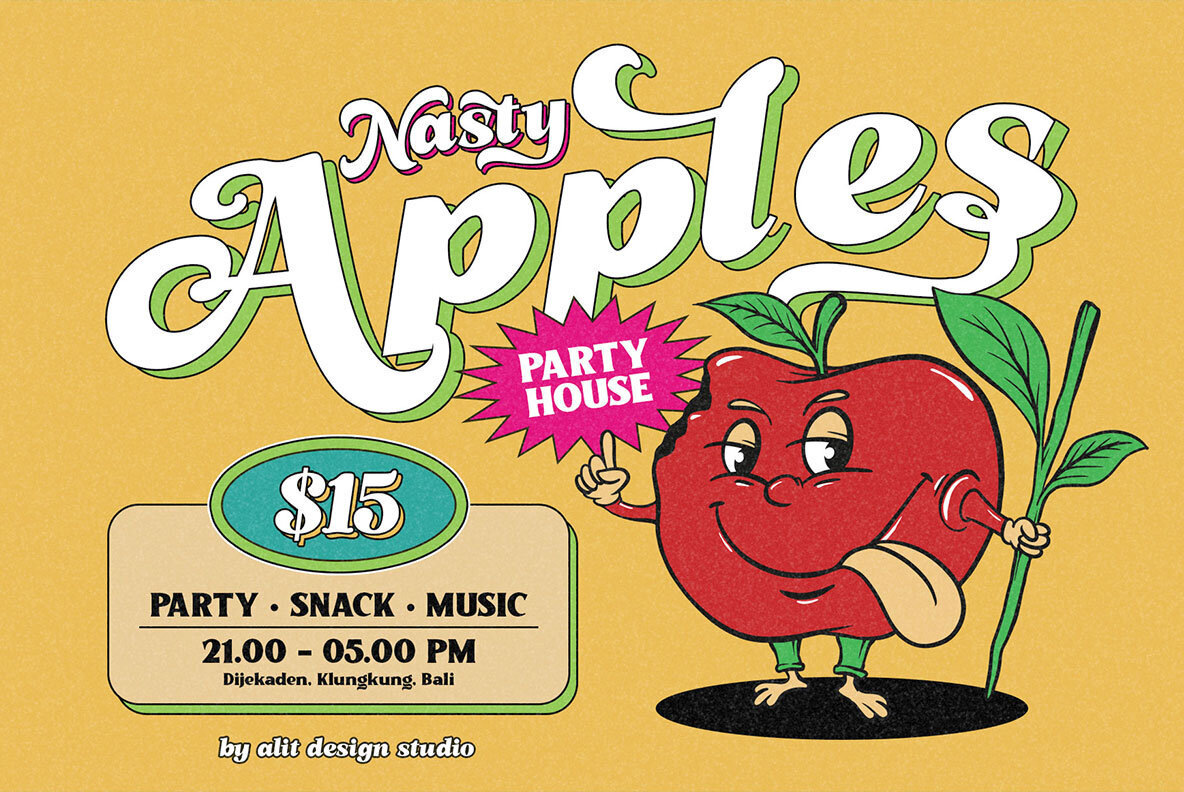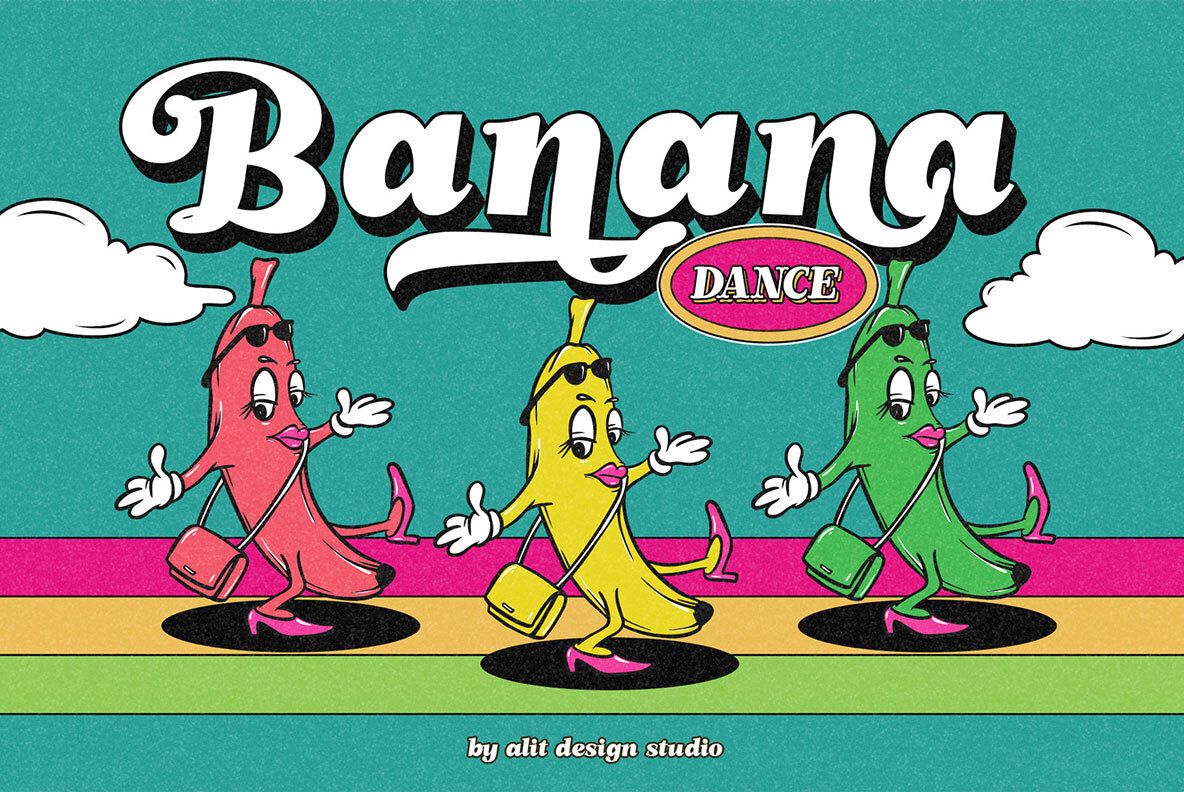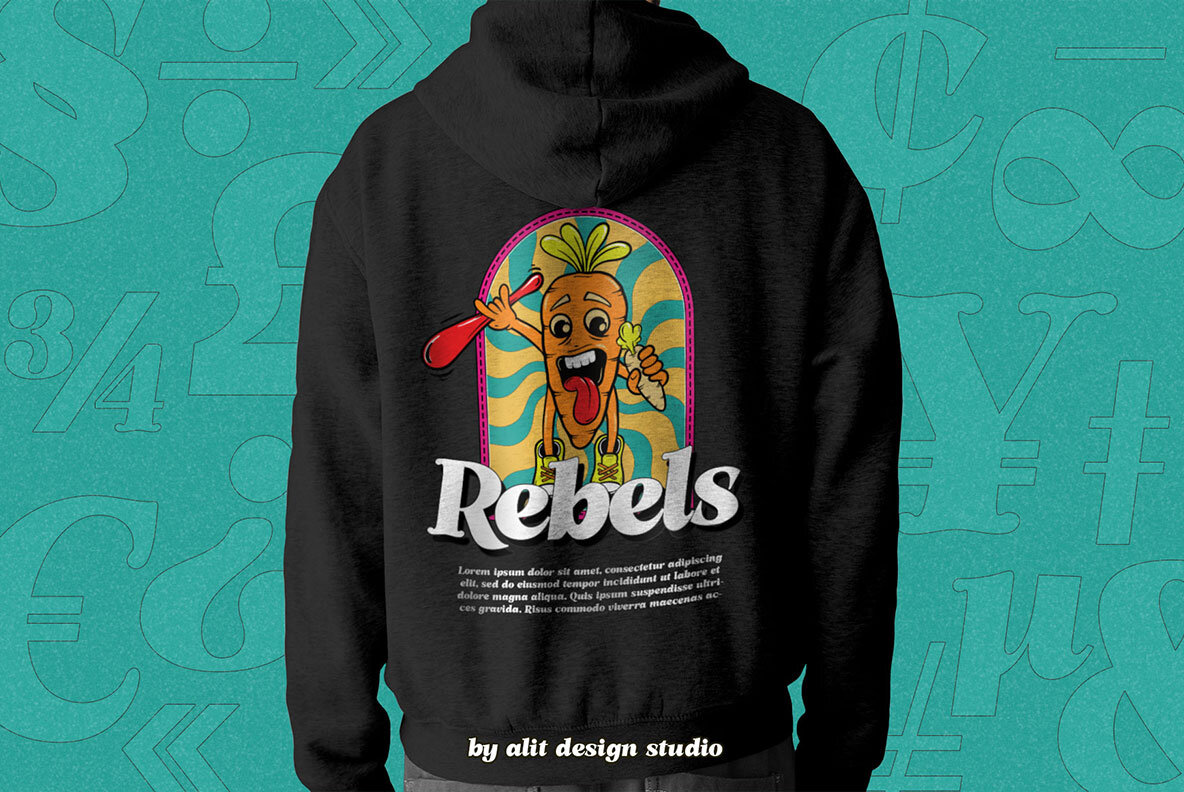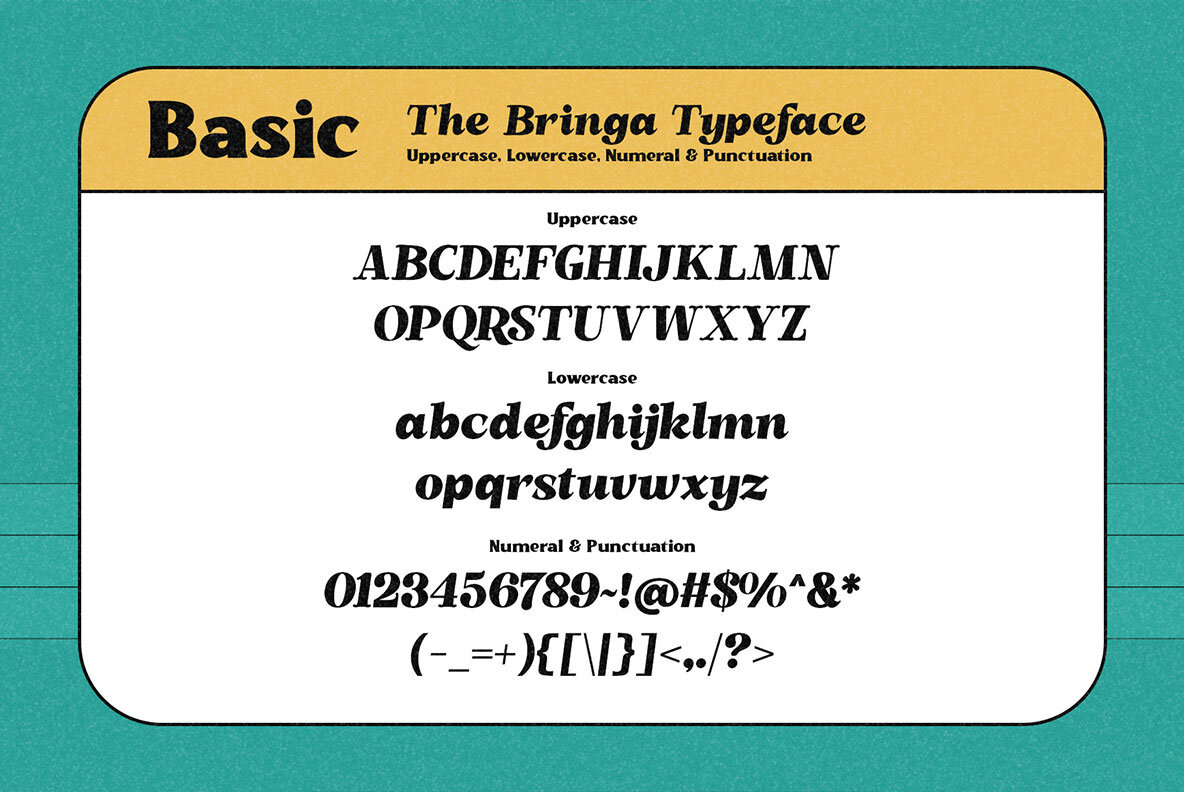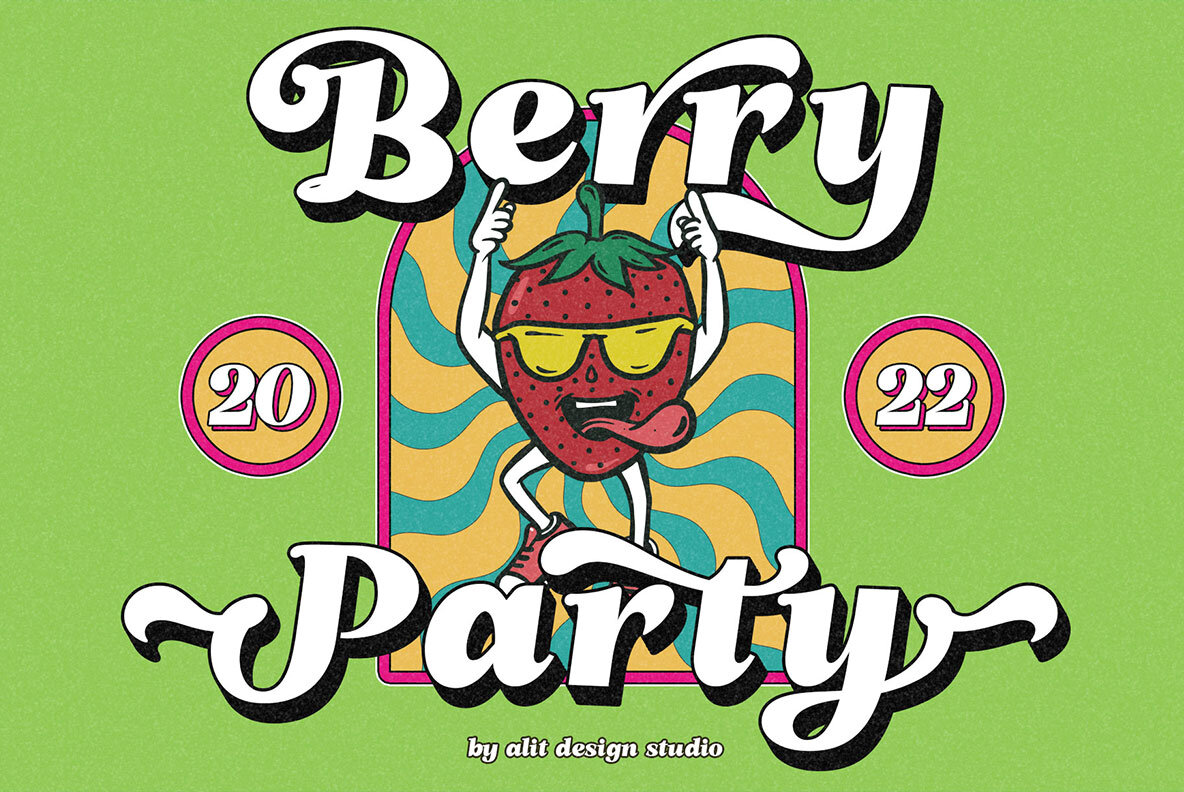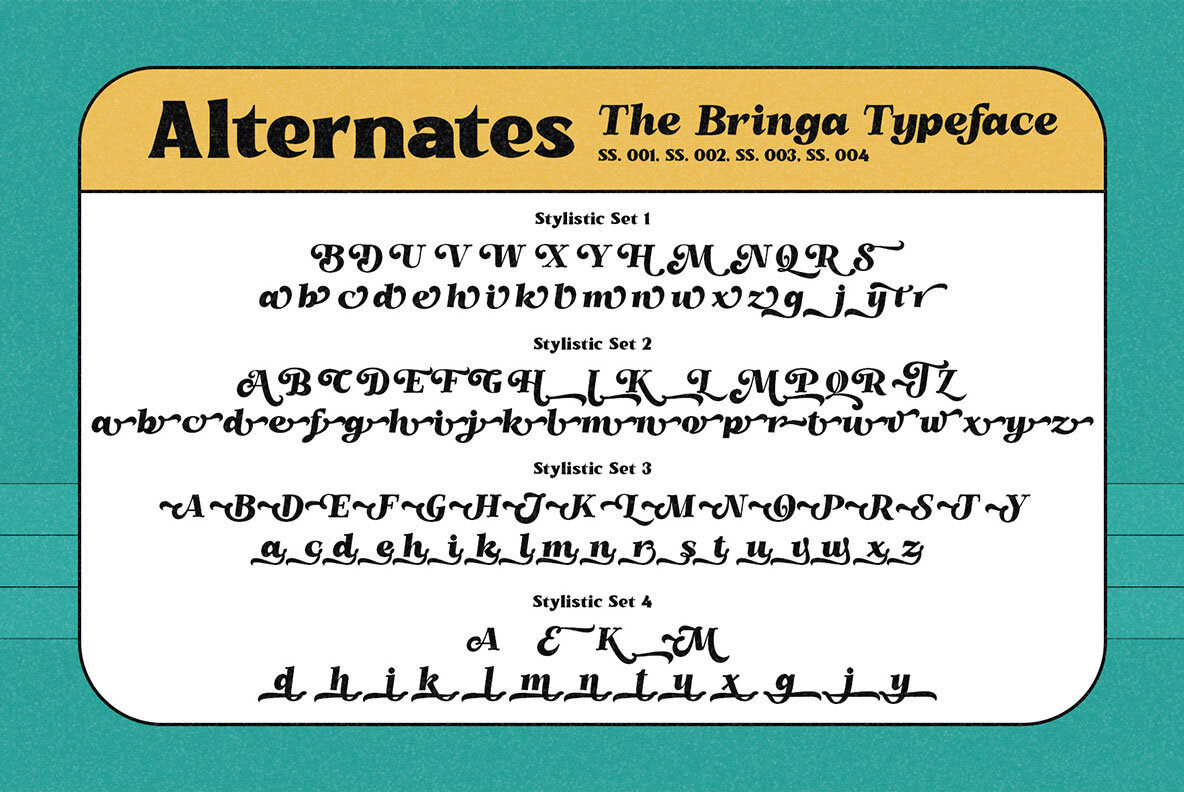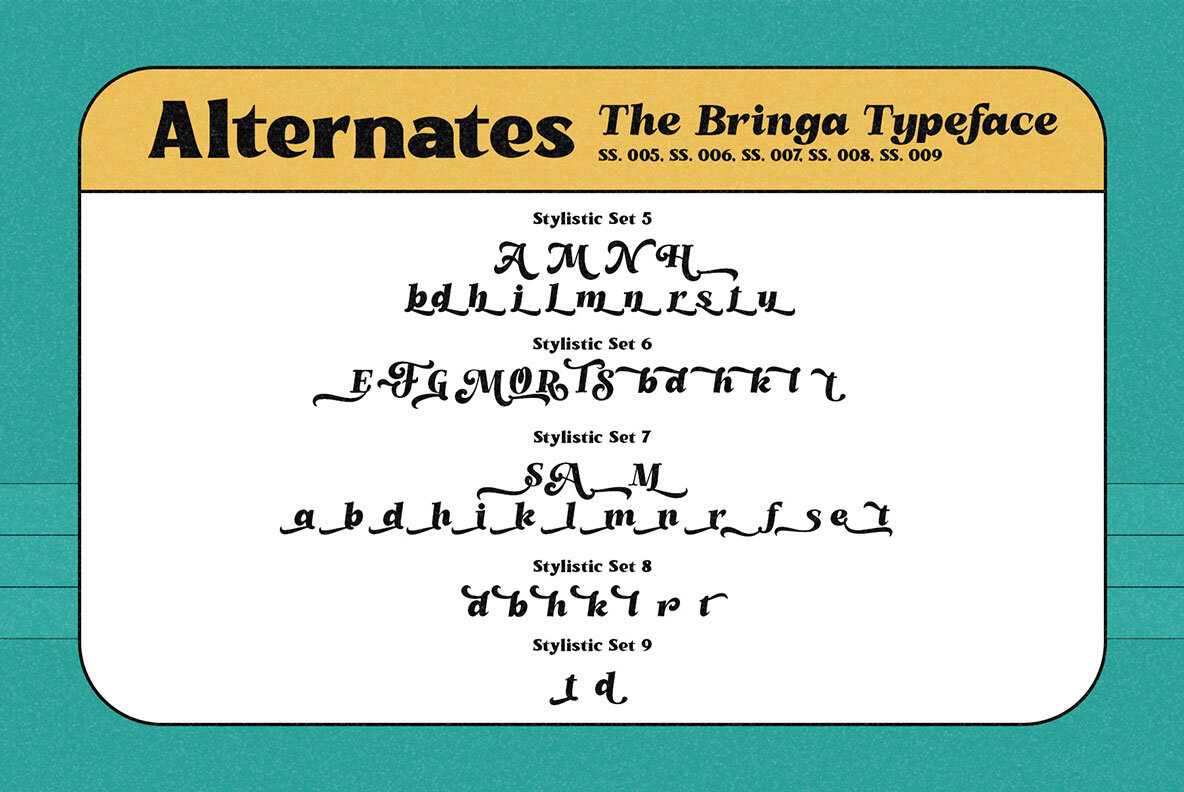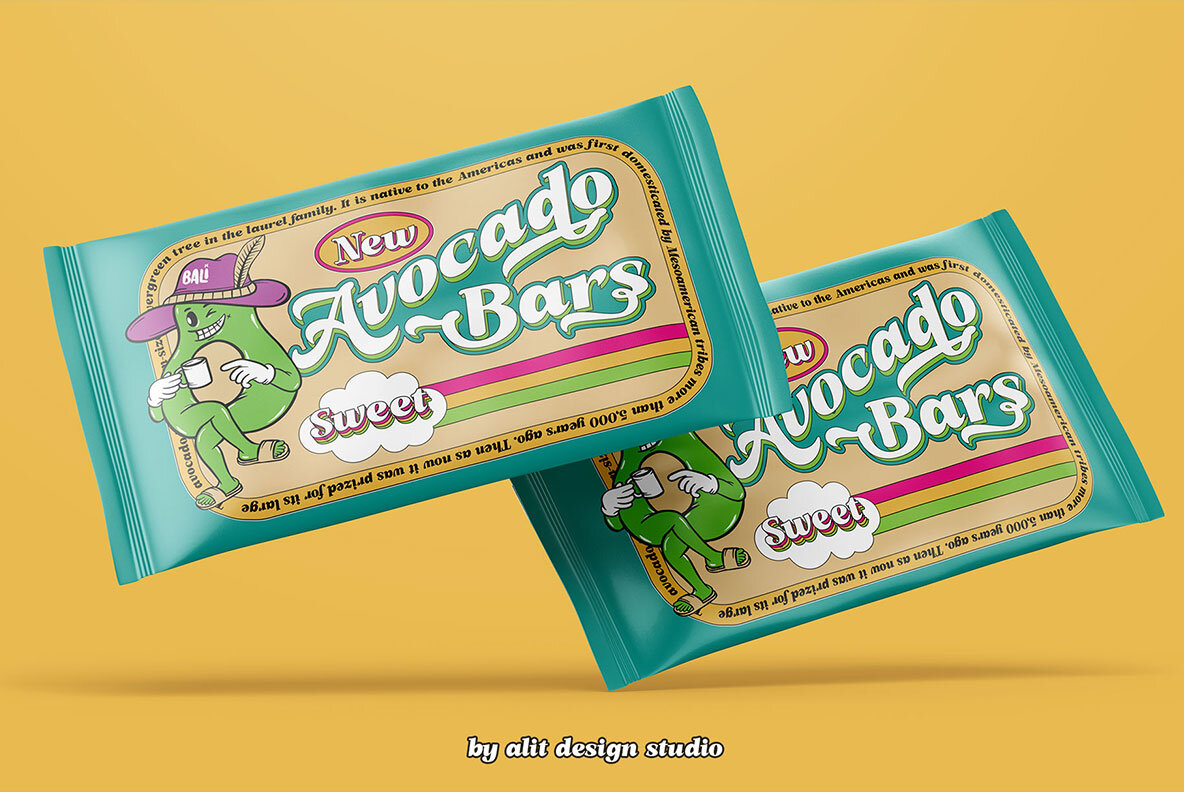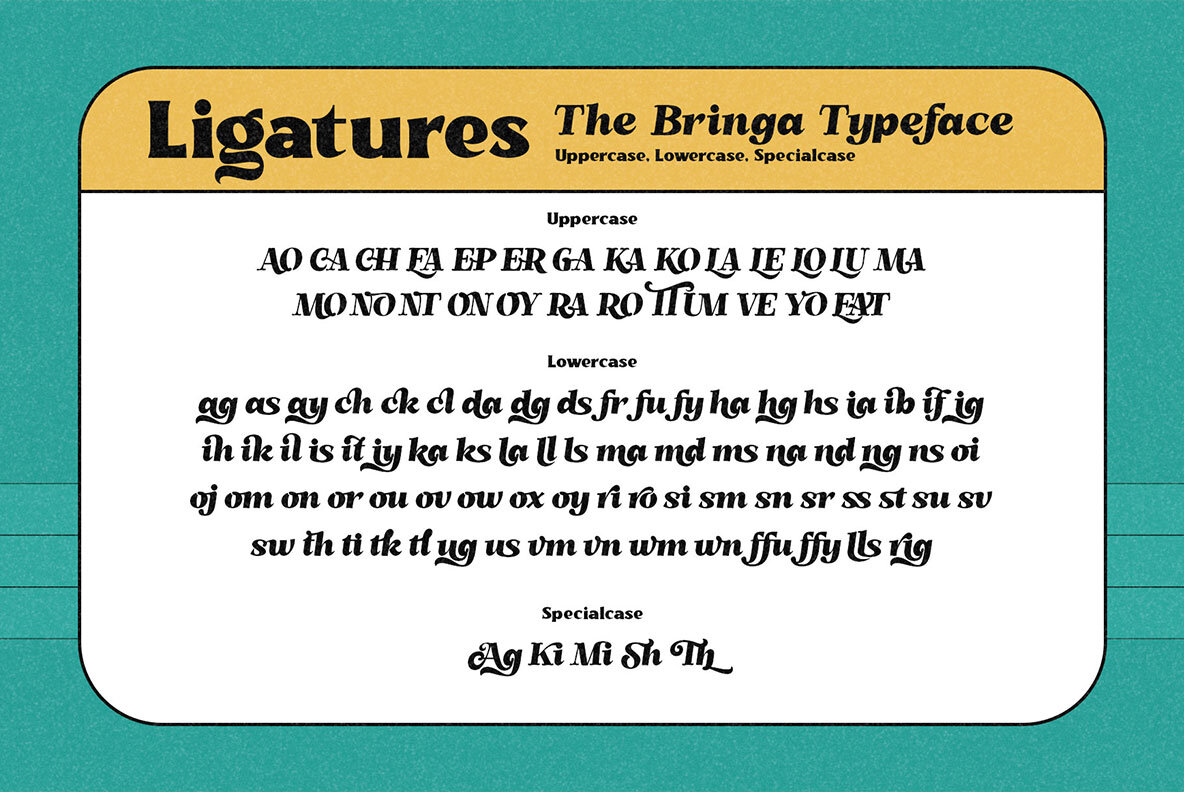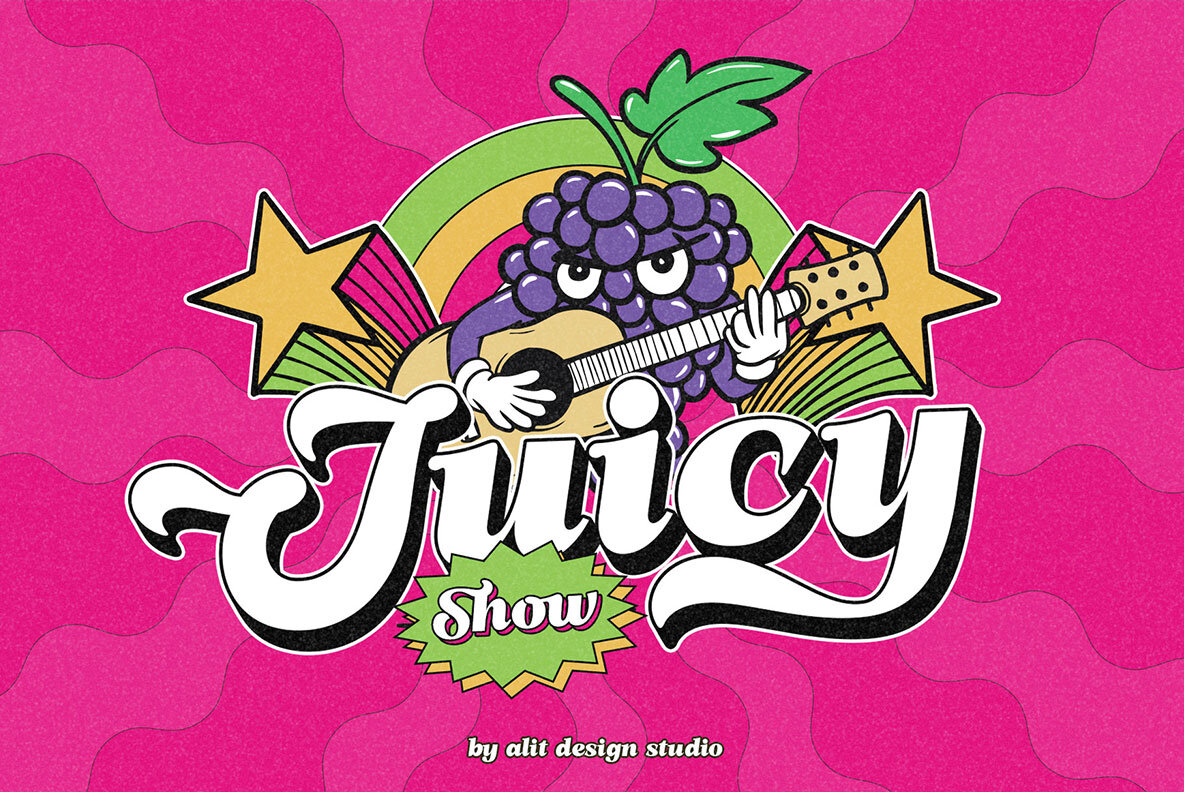
The Bringa Font
Inspired by stylish 80s and 90s designs, The Bringa Typeface captures a bold, nostalgic aesthetic, perfect for creating retro-style projects. With its wide selection of alternative characters and swashes, this typeface effortlessly adds a firm, trendy impression to any design. Ideal for crafting magazine and music cover designs, YouTube thumbnails, text headers, and logotypes, this font supports an elegant yet playful retro concept. The typeface features 786 glyphs, offering symbol, multilingual, and alternative options, alongside 13 characters inspired by retro cartoons. The Bringa Typeface is compatible with applications like Adobe Illustrator, Adobe Photoshop, Adobe InDesign, and Corel Draw for advanced OpenType features. Enhance your creative projects with this timeless font that celebrates the retro design era.The Bringa: Nostalgic Typeface with Retro Charm